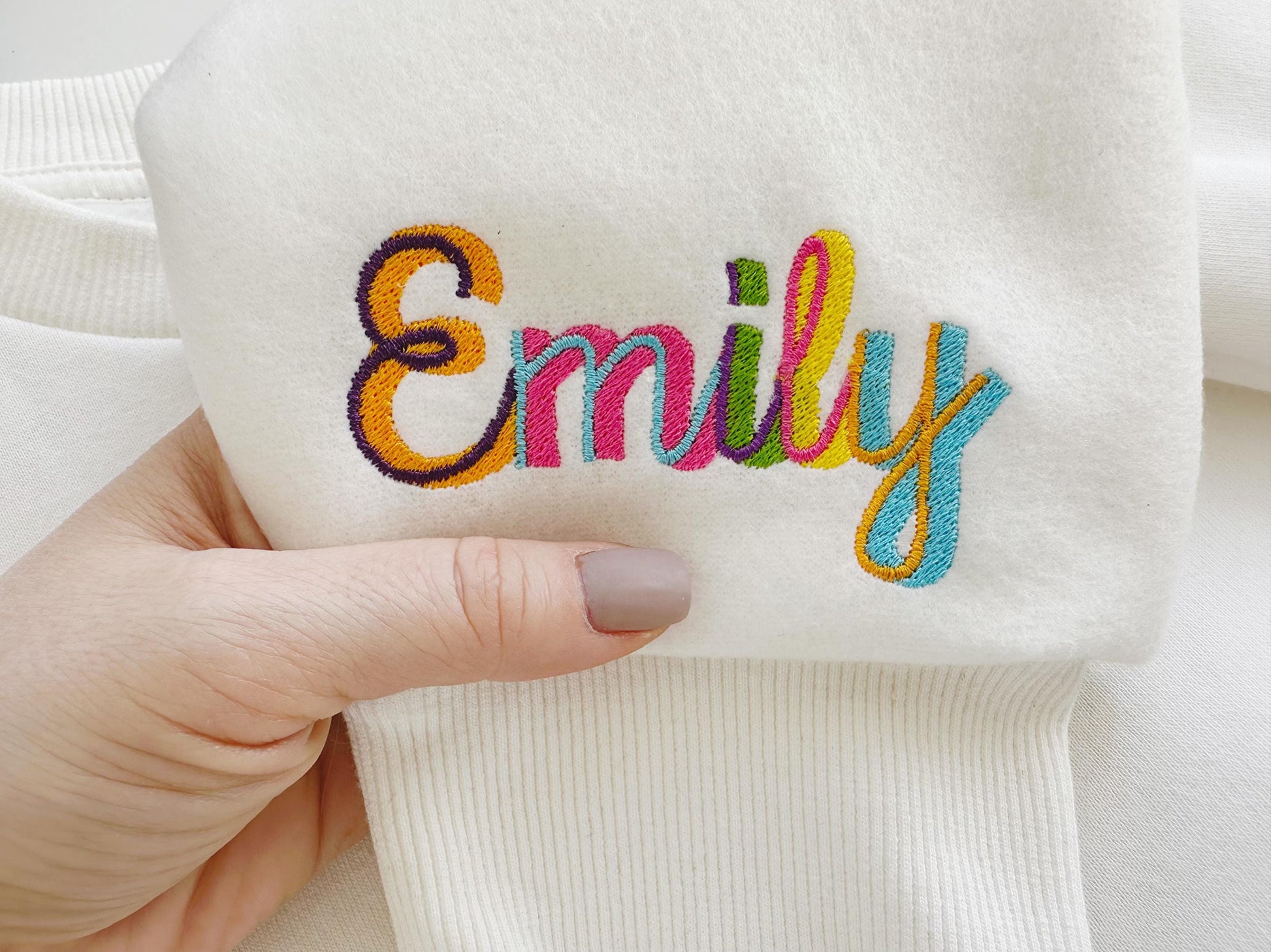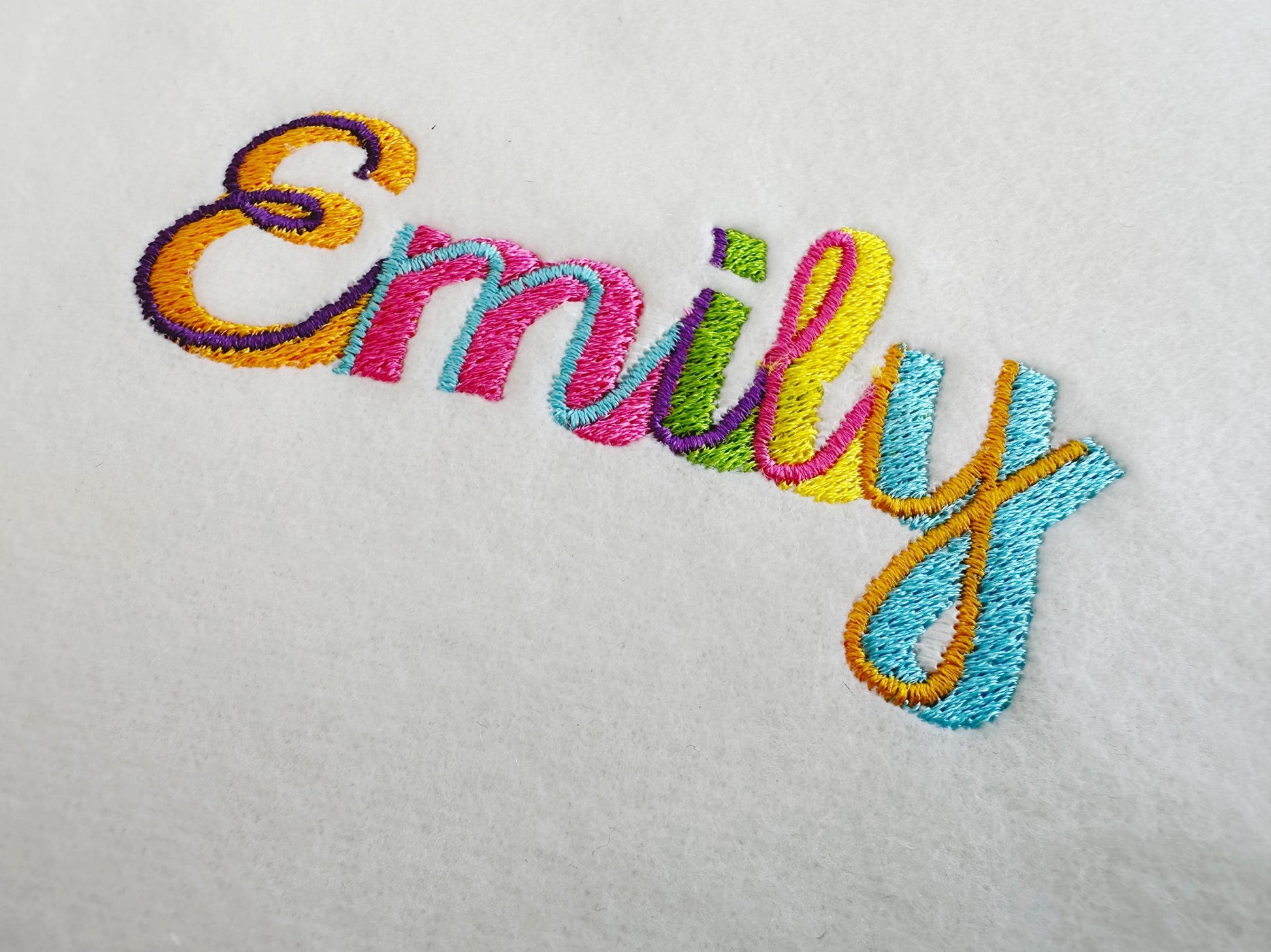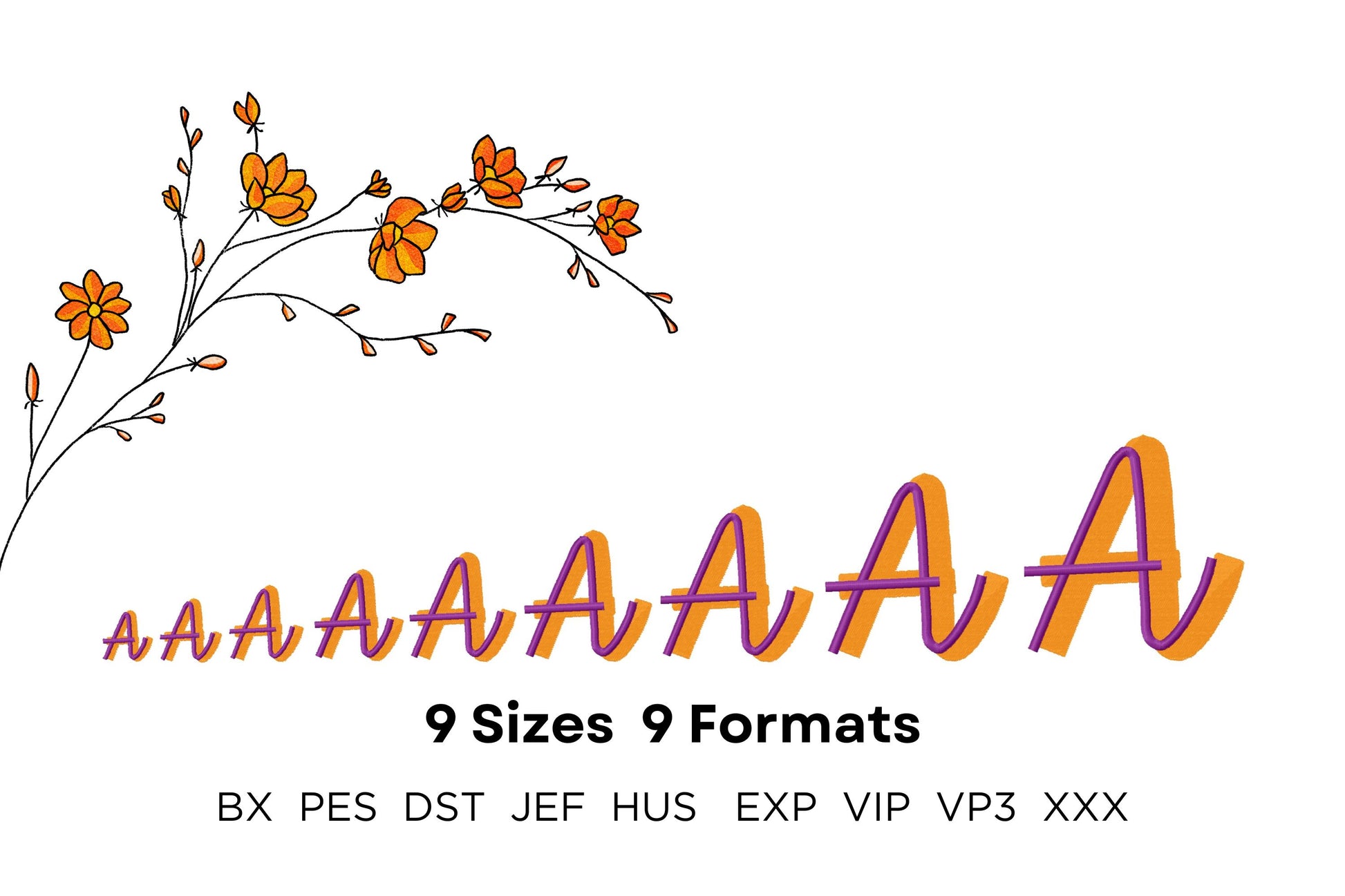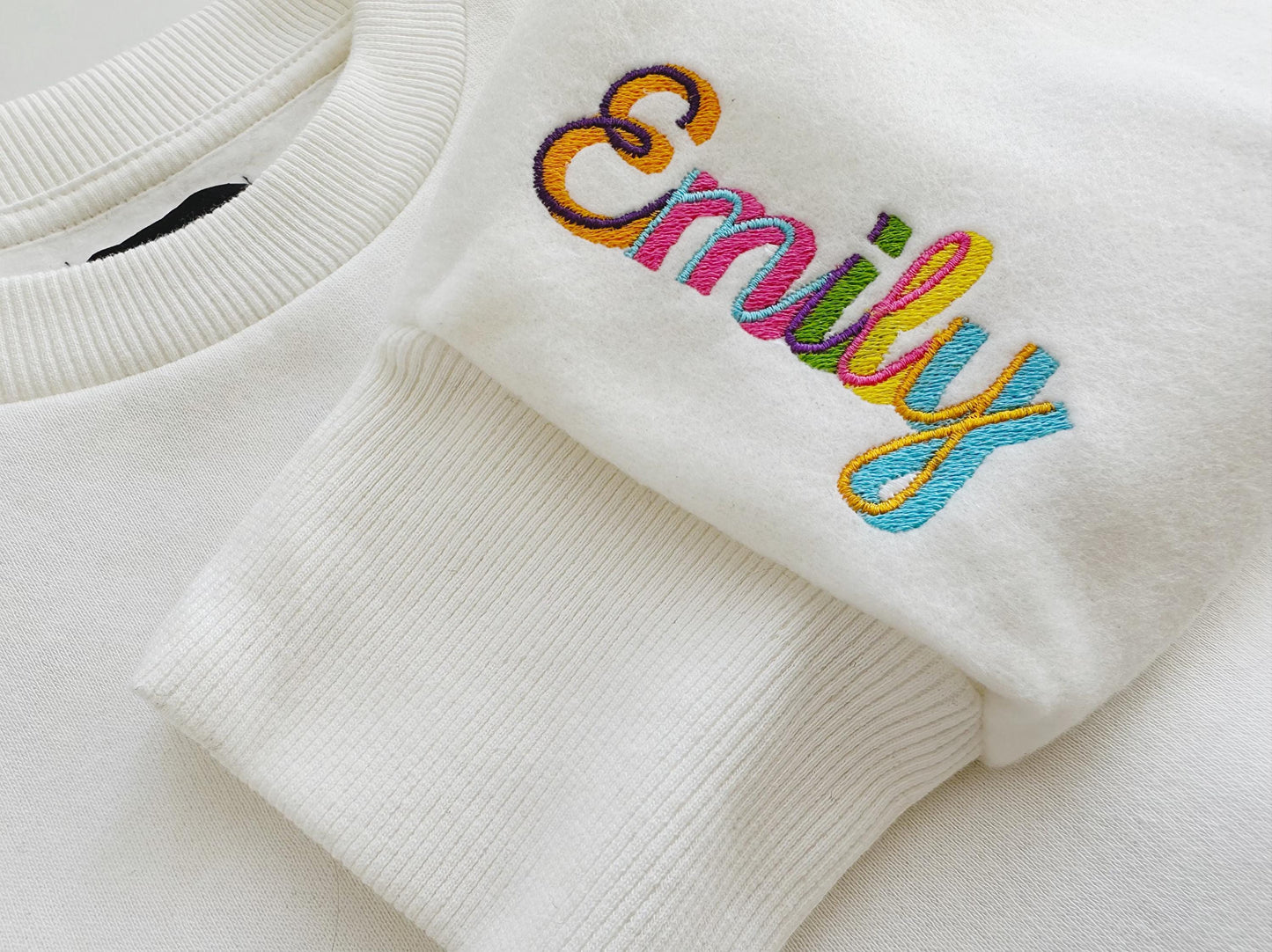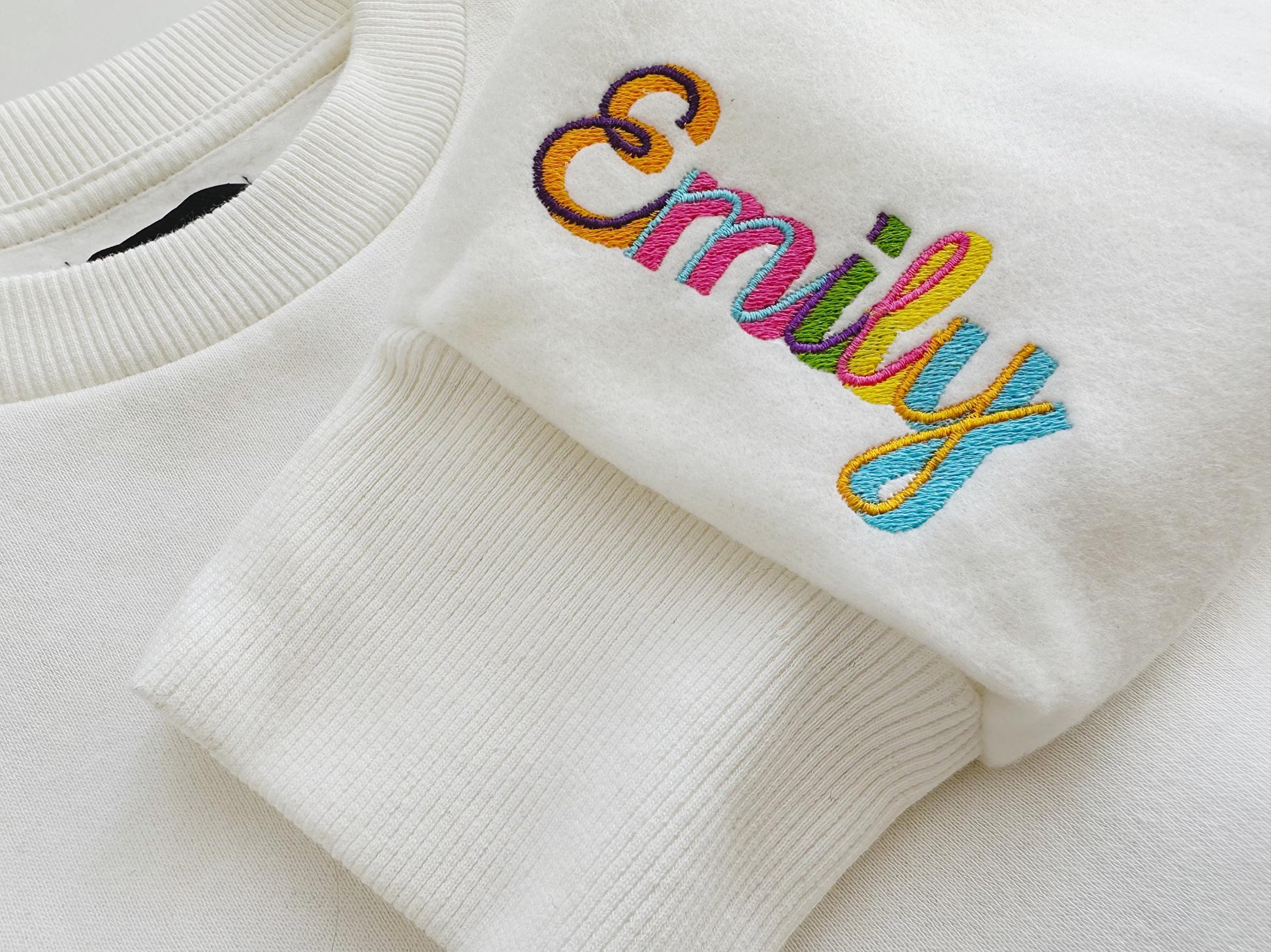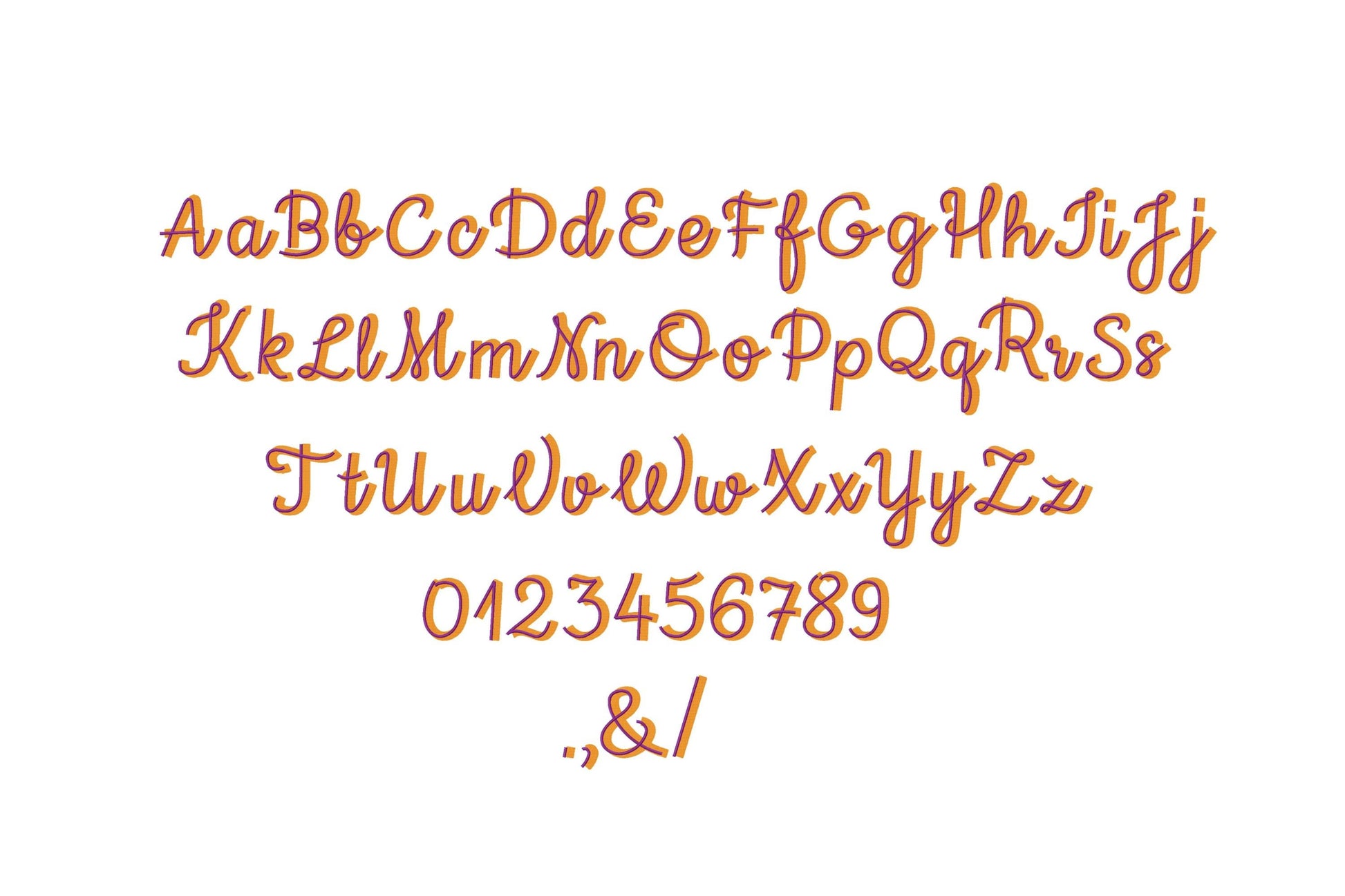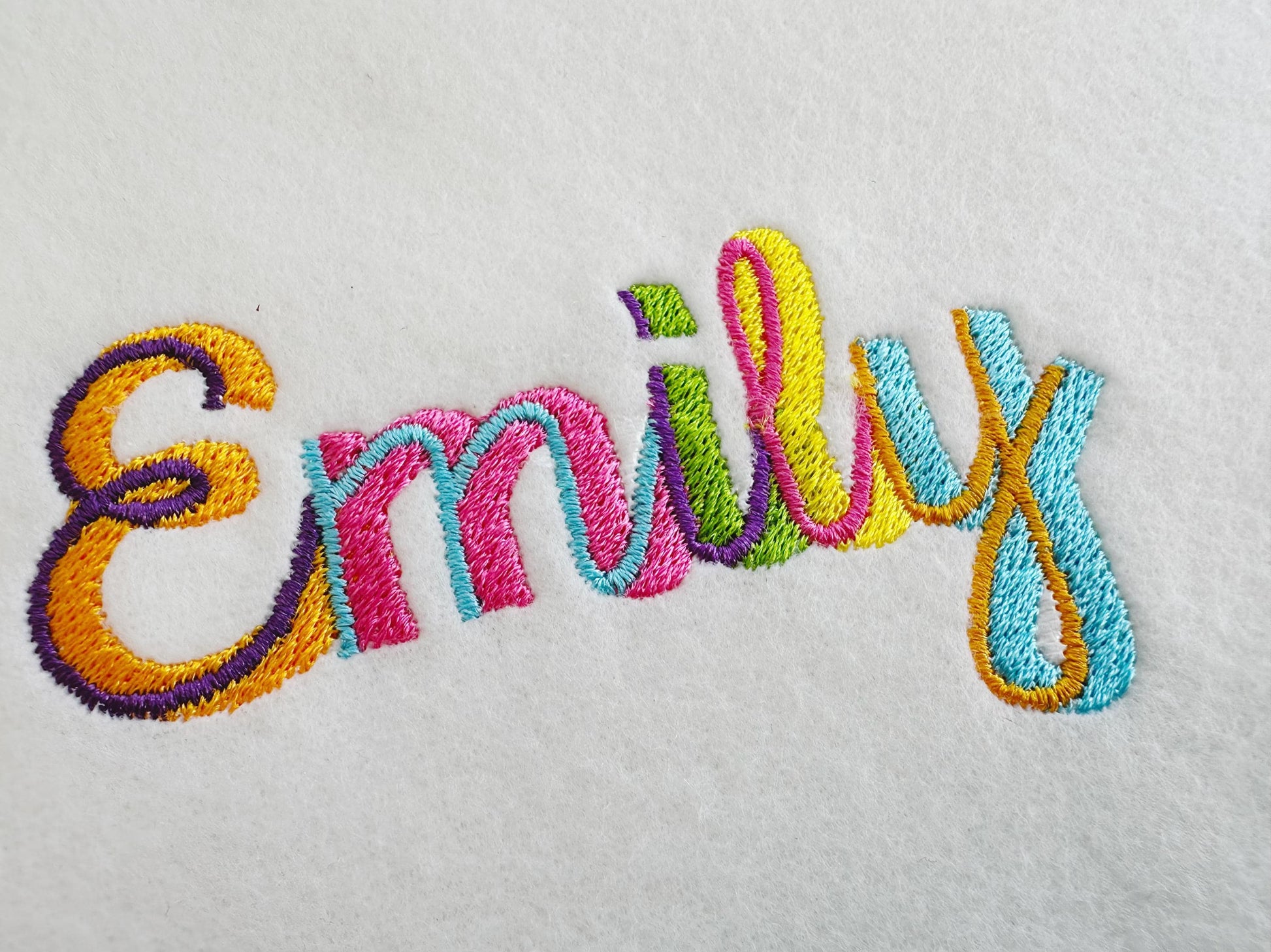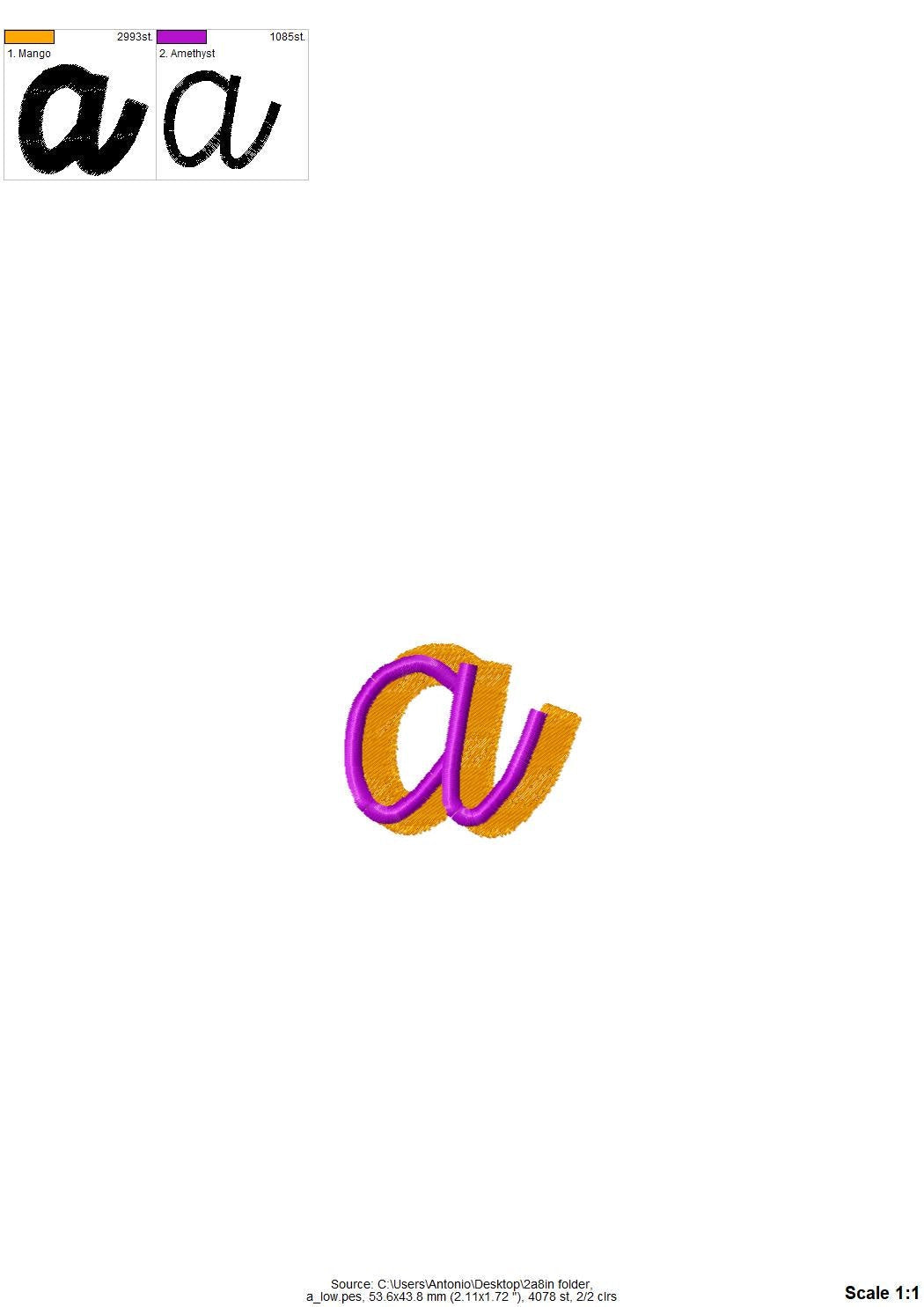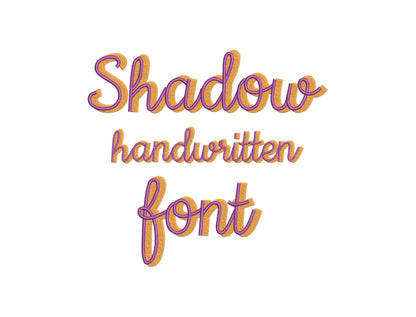
Such a fun font that stitched out perfectly for my projects
Easy to download, easy to use with my Brother sewing machine. I made a name tag for myself and it came out great. Thank you!
Love this font and it stitched out so well!
I absolutely love this font! It looks amazing and comes out so clean! An unexpected perk it the website with the software to edit it. I can change the colors, re-order the stitches to do all the shadows and then all of the front letters. This totally makes me want to buy more fonts from this seller! You can buy on Etsy and still use the website to edit.
Cute embroidery design and easy to use in embrillience
Super Datei sehr zu empfehlen
Super Nice, you can play with colors to create something very adorable
Love this shop. Used this font for beach towels and everyone loves them. Very easy.
I really like this font style
it is a great font!
Stitches up perfect — easy to use
Great font. Will use it a lot!
tolle Schrift, ist sehr dekorativ.
It's a great font to play with fun designs. I highlighted the letters LORI in the word Exploring put Always above it for a friend who was going on a big multi country trip for her birthday!
Files are easy to use and stitch out great!
This design stitches out great.
Super cute love how it stitched out
Such a fun font, easy to download and stitched out great!
Great quality. Love the item
This file was easy to use and cute!
The letters are very cute.
Eine sehr schöne Schriftdatei lässt sich gut sticken
Love love love love this
Sehr schönes Stickbild. Erwartung erfüllt.
Very cute file. Can’t wait to stitch it out
Another exceptional design from Artapli
So adorable! Very easy to use!
Loved this font. Turned out beautifully
Stitched out as expected! Thanks!
I’m obsessed with this item. So cute!
Beautiful font , but haven’t stitched out yet.
Sehr schöne Schrift, immer wieder gerne 👍🏻
Stitched out amazingly, I can’t stop using this font
The Stitching was great !
Beautiful font , easy to use , thank you
I adore this font, I bought it particularly for baby items. It’s perfect! It comes in so many sizes as well.